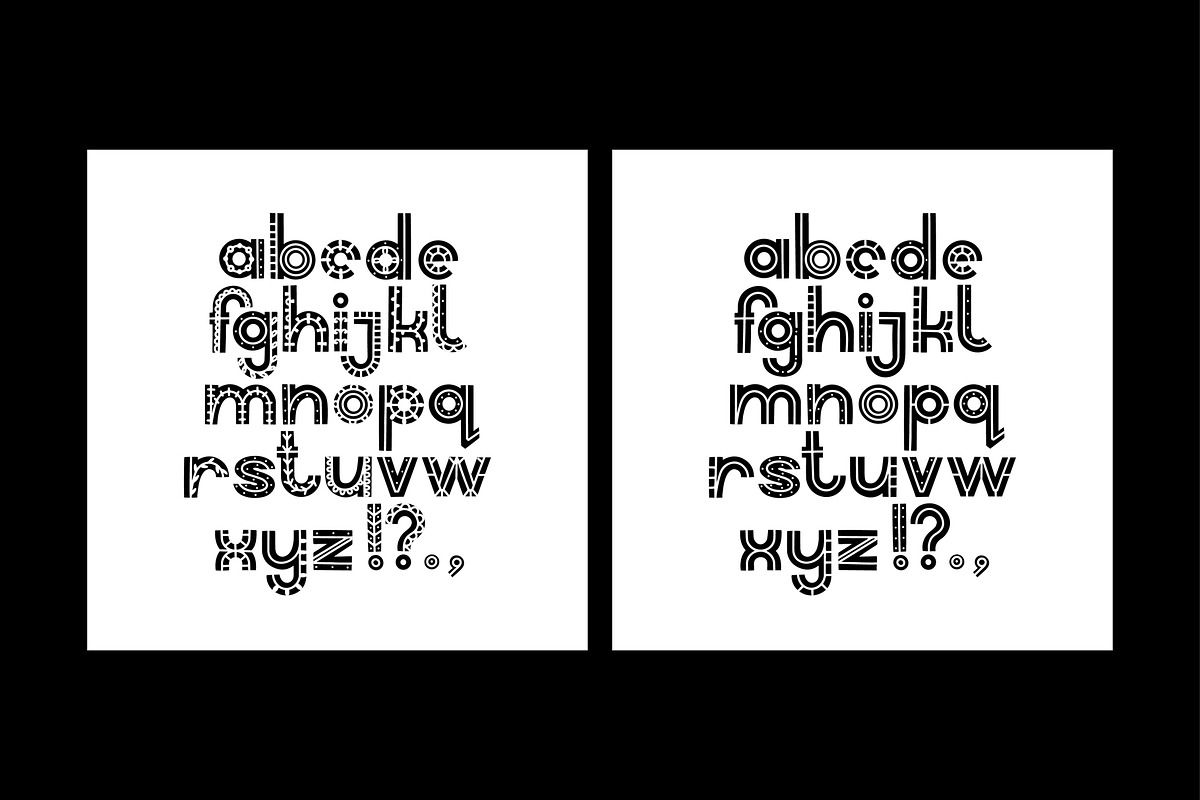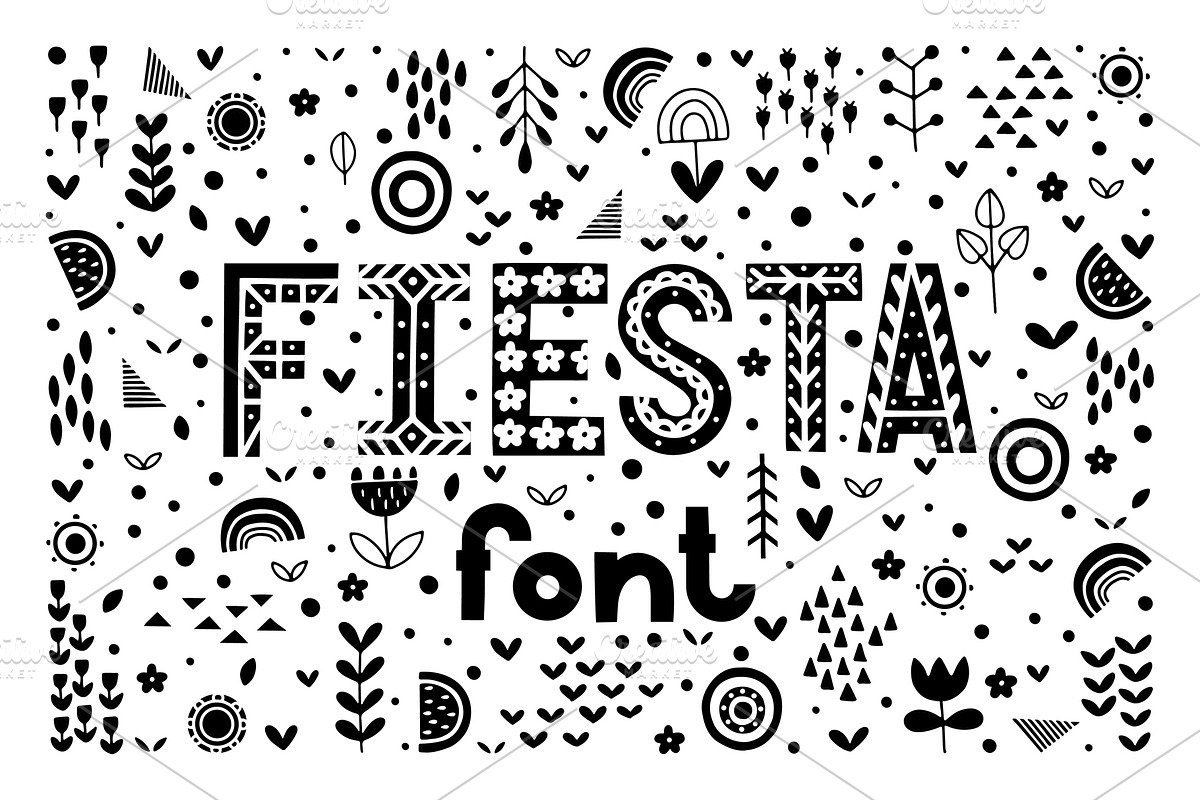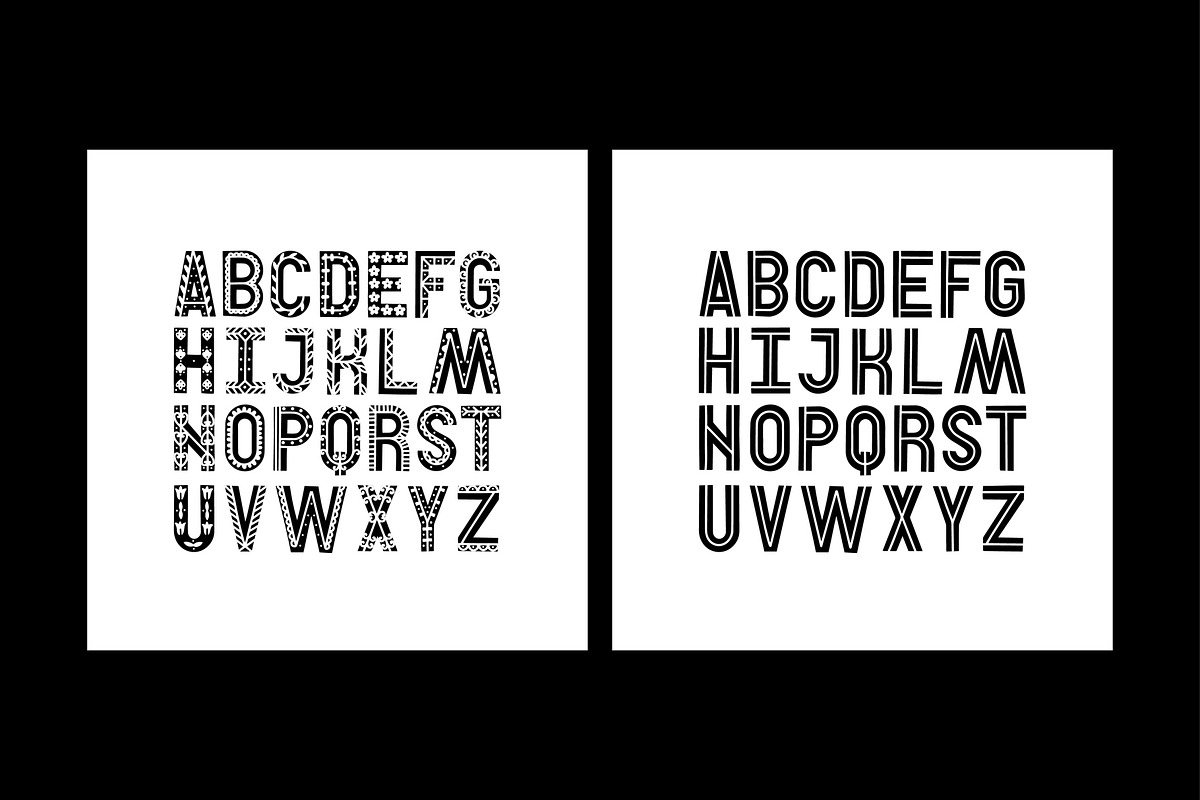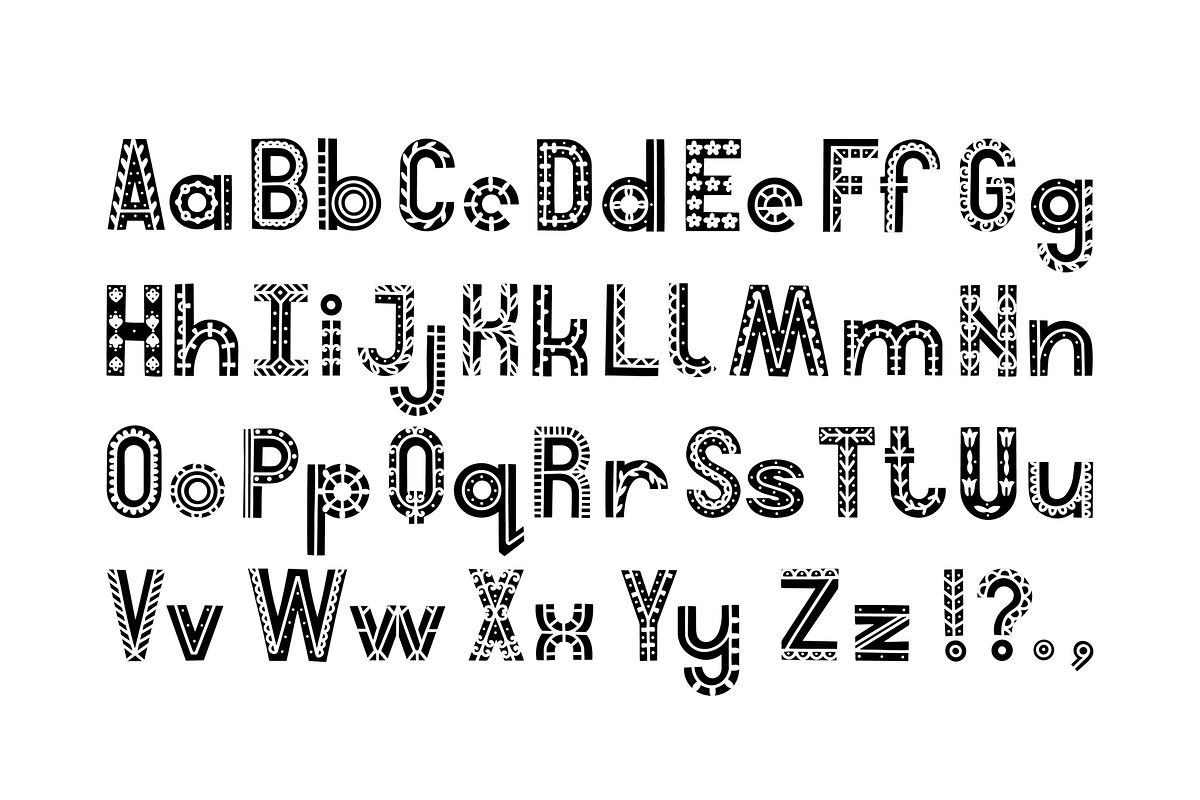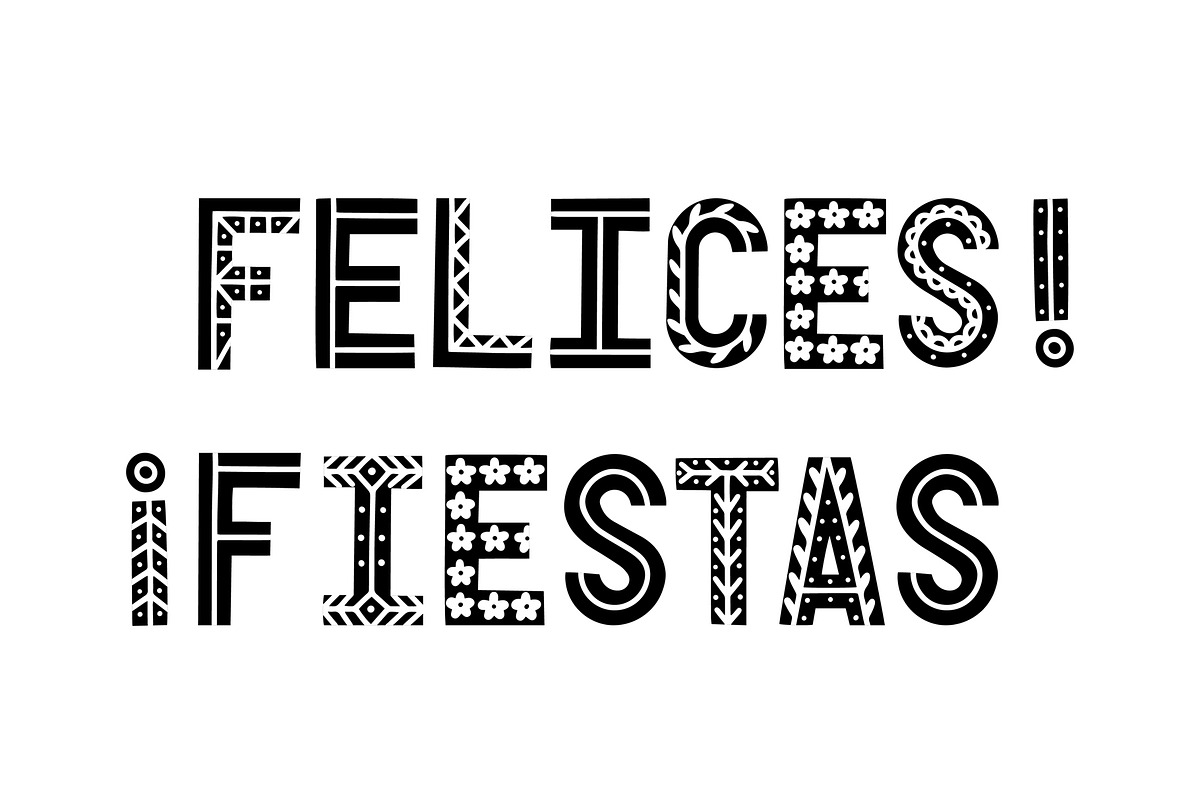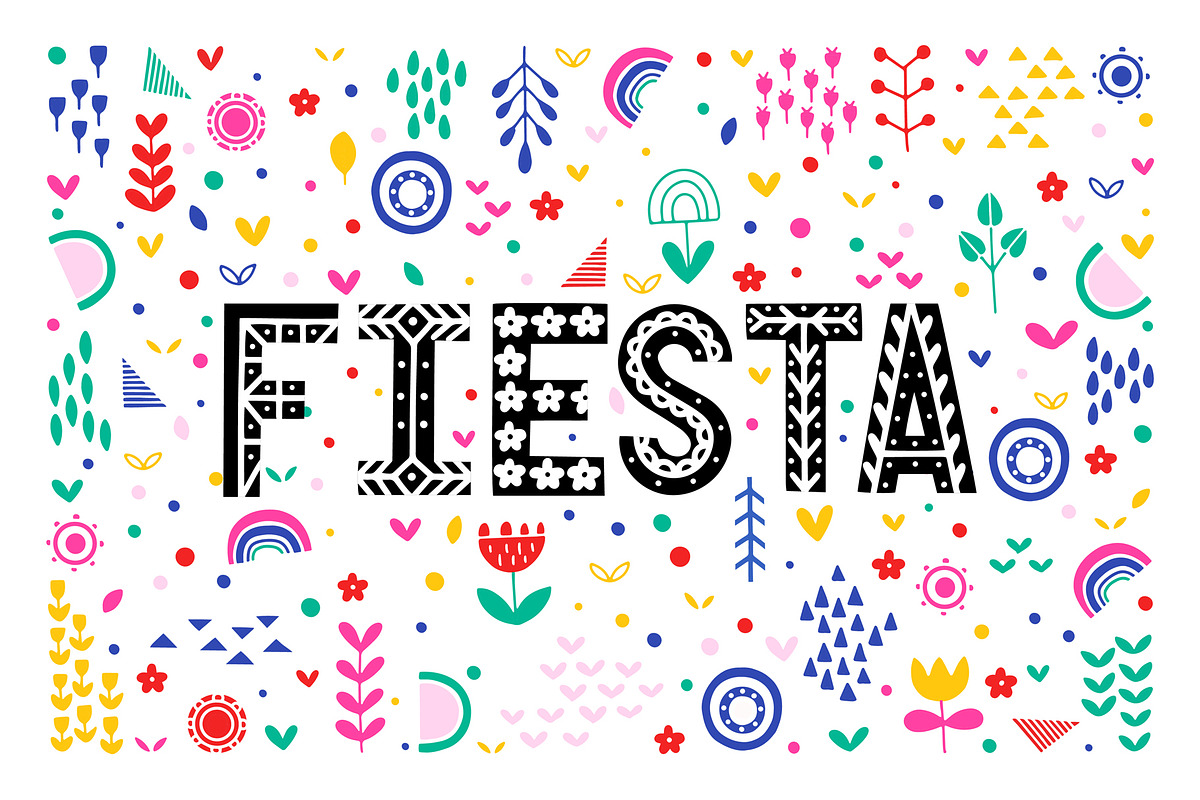
FIESTA font
Hand drawn ethnic alphabet. Latin type font set. It is a set with type font, letters in vector, lettering posters and decorative elements. Perfect for Spanish and Mexican festive designs, enjoy!
FIESTA font by LitPrint fits naturally into Branding, posters, packaging, typography.